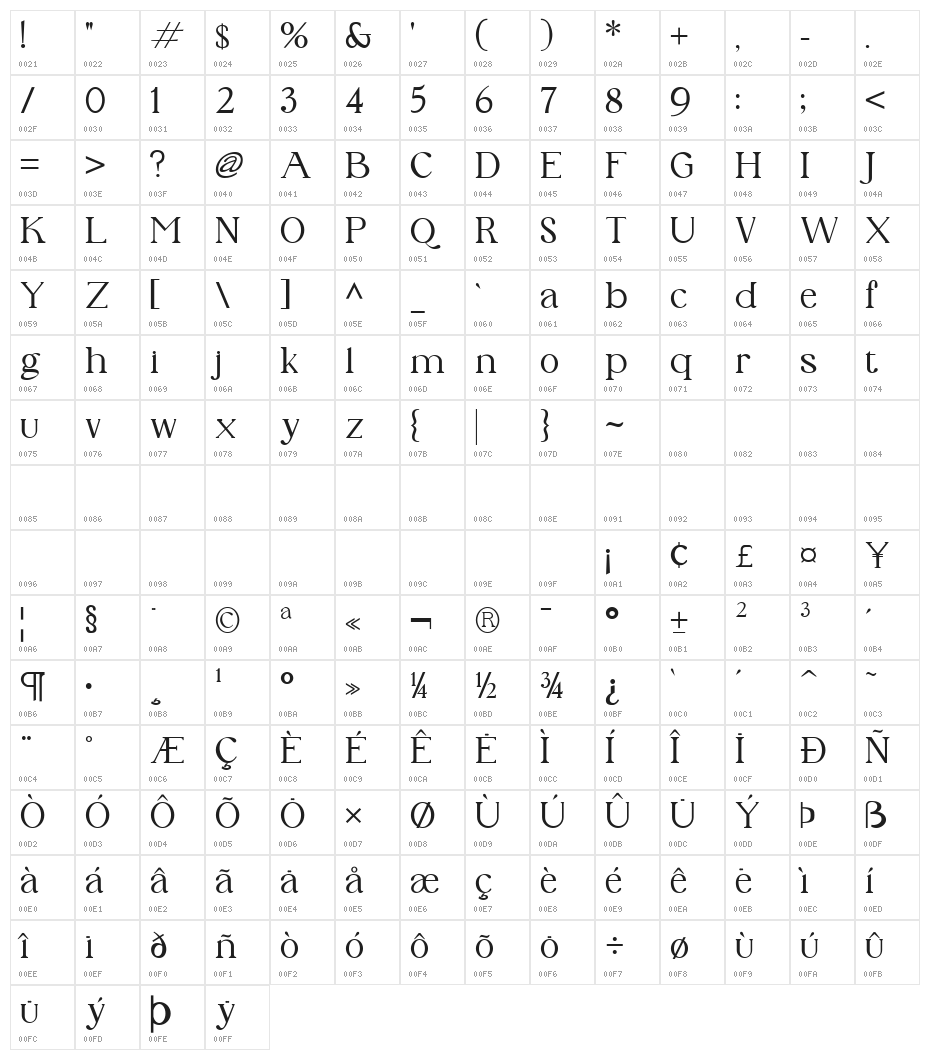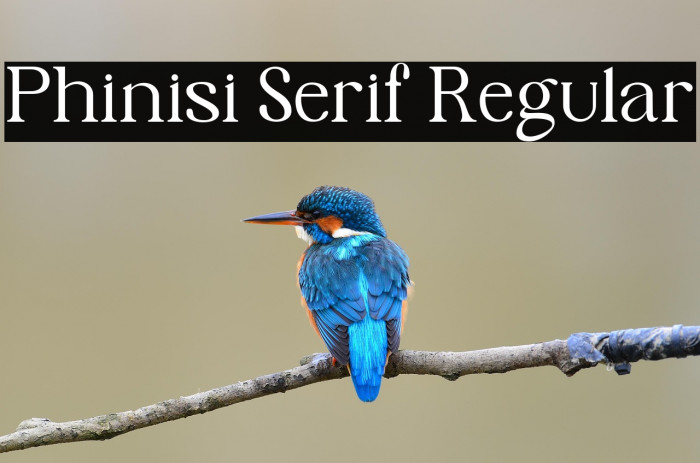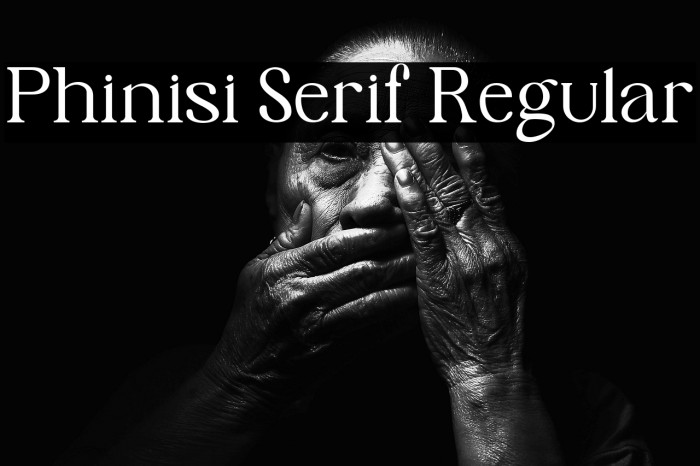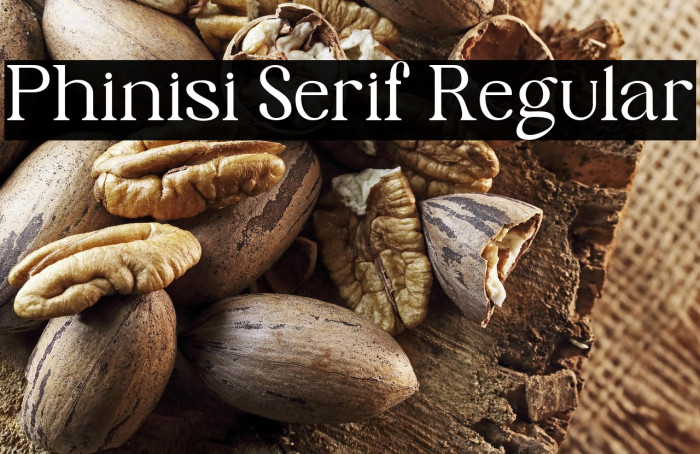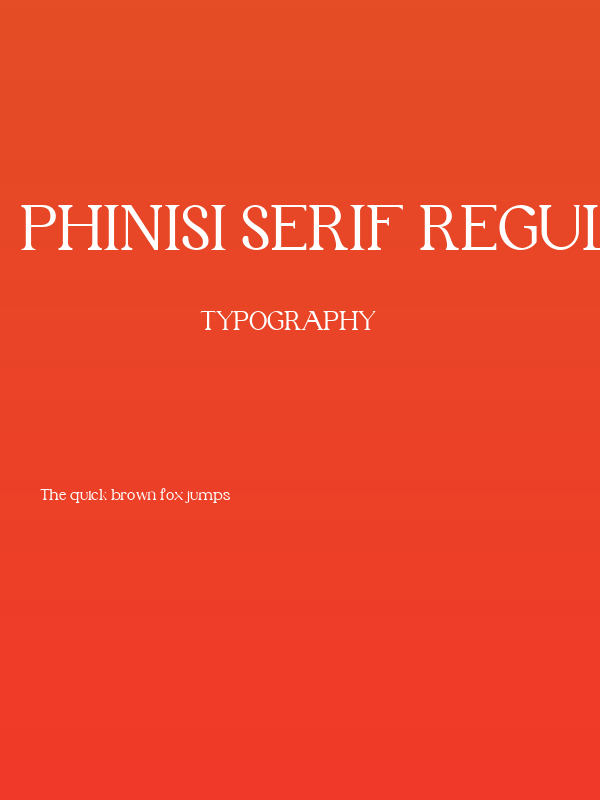
Phinisi Serif Regular Font
Phinisi Serif Regular Description
This font exhibits a classic serif style with elegant and refined letterforms. The characters feature distinct serifs that add a touch of sophistication and readability. The uppercase letters are bold and commanding, while the lowercase letters maintain a graceful flow. The numerals are well-proportioned, ensuring clarity and balance. Special characters are designed with attention to detail, complementing the overall aesthetic. This font's timeless appeal makes it suitable for a variety of applications, from formal documents to creative projects.
| Proposed Projects | Ideal for book covers, editorial design, branding, and formal invitations. |